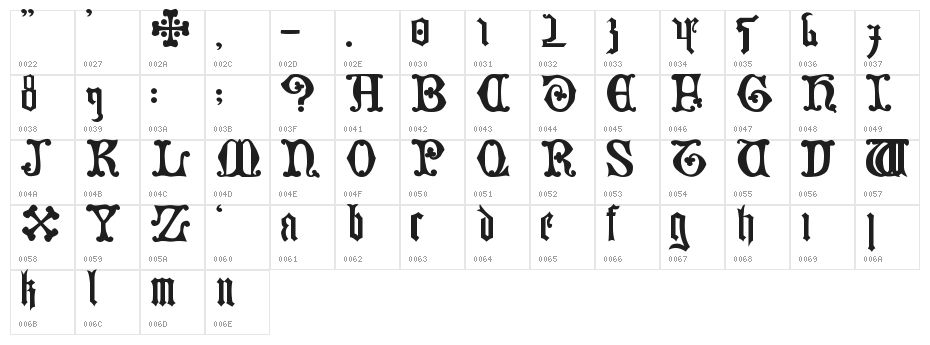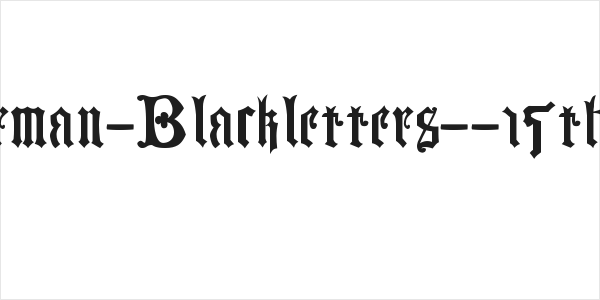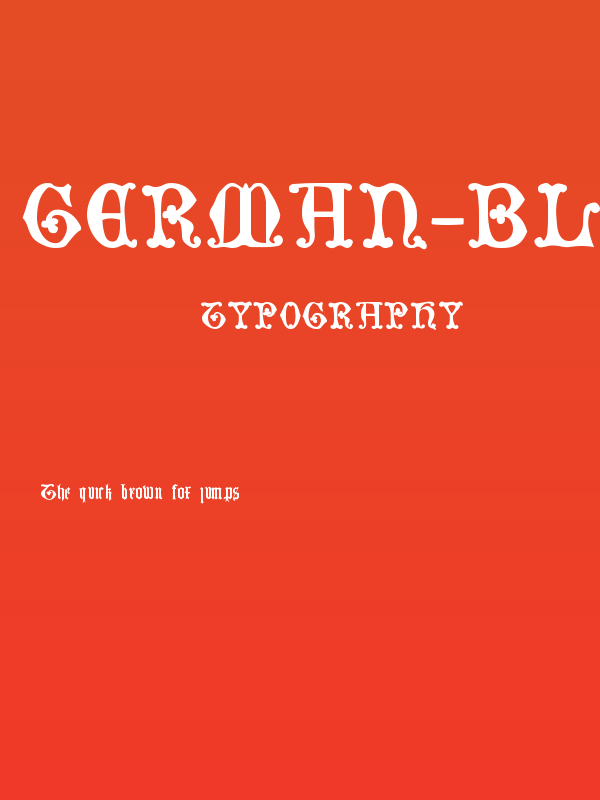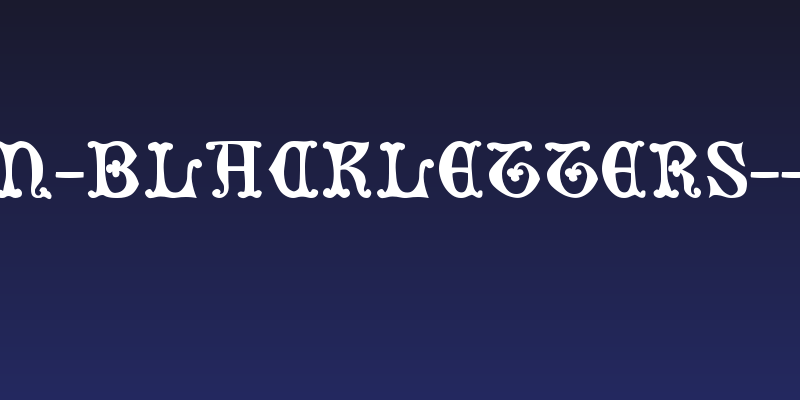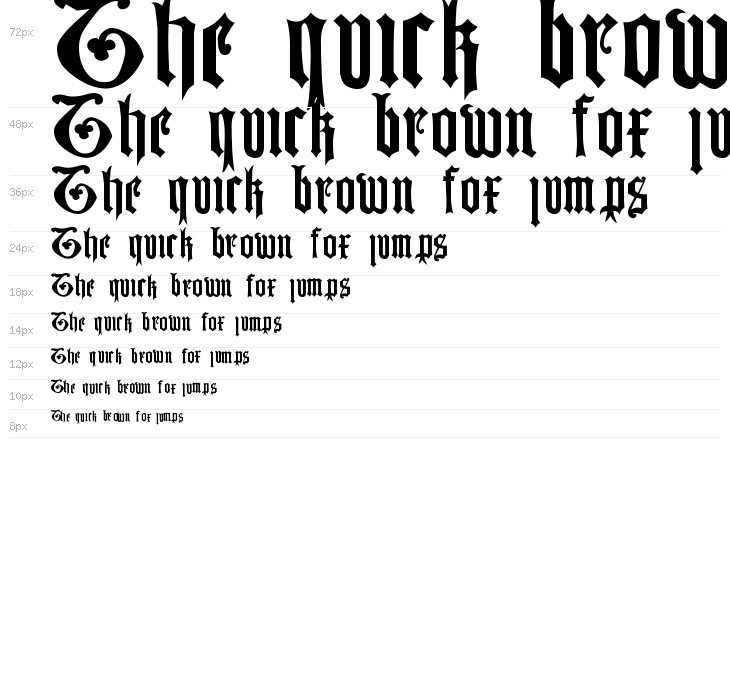
German-Blackletters--15th-c- Font
German-Blackletters--15th-c- Description
This font is a classic representation of the Blackletter style, reminiscent of the 15th-century German script. It features ornate and intricate letterforms with sharp, angular lines and dramatic flourishes. The uppercase letters are bold and commanding, while the lowercase letters maintain a consistent weight and style. The numbers and special characters are equally elaborate, adding to the overall historical and gothic aesthetic. This font is perfect for projects that require a medieval or vintage touch, such as historical documents, themed events, or decorative signage.